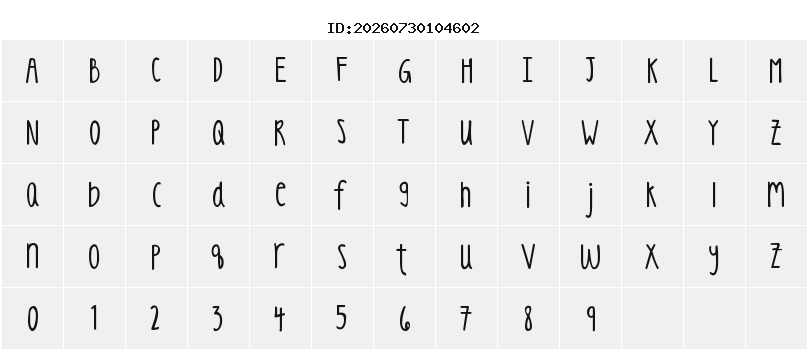
• Font Name: KG Luck of the Irish
• Designer: Kimberly Geswein
About KG Luck of the Irish.ttf
KG Luck of the Irish.ttf is a modern, elegant sans-serif font designed for ultimate readability and visual harmony. Perfect for branding, headlines, web design, and print materials.